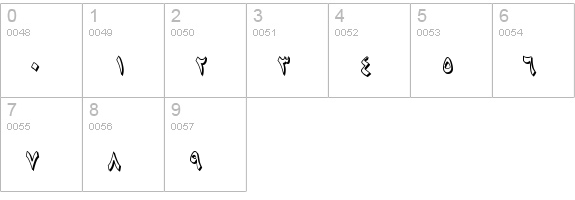
B Niki Shadow Font Details
B Niki Shadow font is a modern and stylish typeface that adds depth and sophistication to any design project. With its unique shadow effect, this font exudes a sense of elegance and professionalism. Perfect for logos, branding, headlines, and more, B Niki Shadow font is sure to make your text stand out. What's even better is that B Niki Shadow font is available for free download at FontsMarket.com. This means you can easily access and use this beautiful font in your projects without any cost. Don't miss out on this opportunity to enhance your designs with the stunning B Niki Shadow font. Download it today and elevate your typography game to the next level.